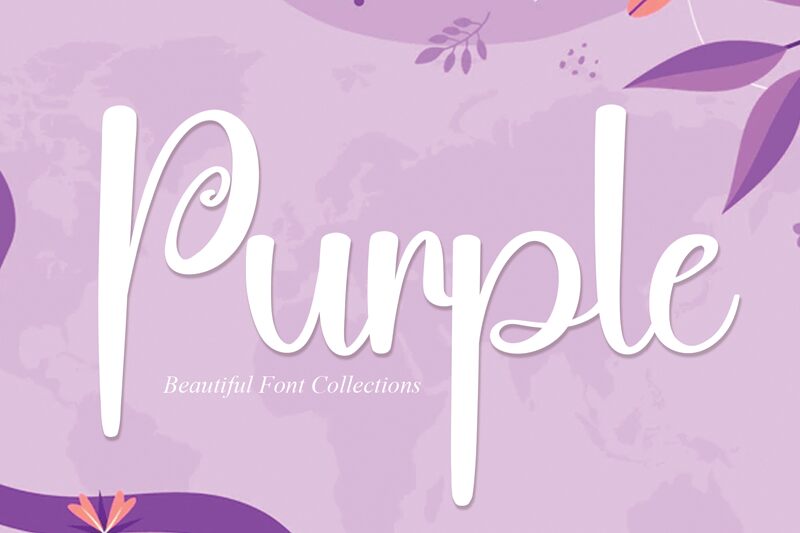
Purple
Purple font, crafted by Andi Moz, captures the playful essence of handwritten, curly typography. Its whimsical strokes evoke a sense of creativity and expressiveness, perfect for adding a personal touch to any design. The font's distinctive loops and swirls create a dynamic visual flow that draws the eye and enhances storytelling in your projects.
Ideal for creative designs like invitations, greeting cards, or branding materials, Purple font brings an air of sophistication blended with charm. Its unique flair sets it apart as both an artistic statement and a functional tool.